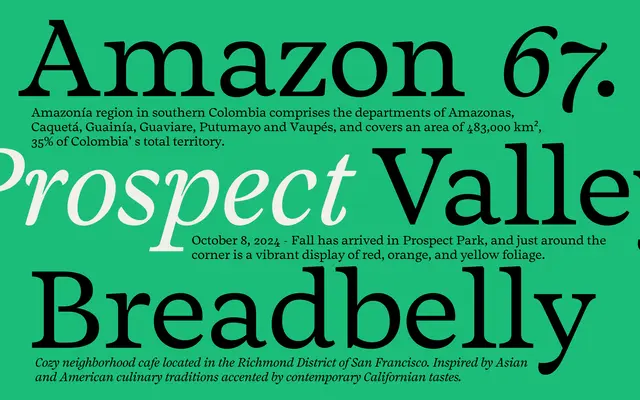
Salvaje Text
An unreleased display family by Cristian Vargas, drawn from the visual extravagance of Birds of Paradise native to New Guinea and Australia.
Salvaje Text takes its name from the Latin silvaticus, meaning wild or of the woods, and draws its formal inspiration from the elaborate plumage and shape-shifting courtship displays of Birds of Paradise. The family is currently in development with weights and styles yet to be confirmed, though planned licensing covers desktop, web, app and logo use. Latin coverage across Basic Latin, Latin-1 Supplement and Latin Extended-A is intended for editorial, packaging, book covers and digital applications.
Described explicitly as a display typeface family; its inspiration in the ornate visual drama of Birds of Paradise suggests a decorative, expressive character suited to headline and editorial use rather than body text.